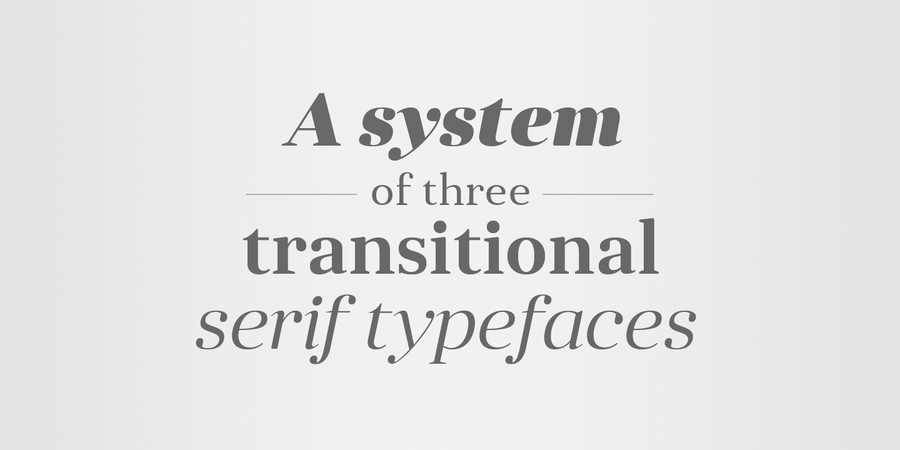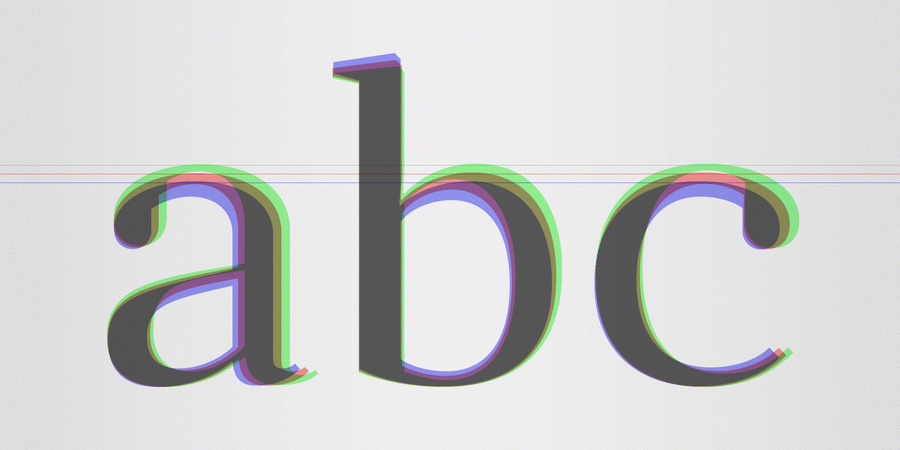
Anglecia Pro is an exquisite and versatile system of three transitional serif typefaces designed to work together in editorial design. Sharing the same skeleton, vertical axis, and trapezoidal uncurved serifs, each of these faces bears different key dimensions and different contrast typical for three different type epochs.
Anglecia Pro Text is a typeface designed for general typesetting in average reading sizes. Although it features a vertical axis, its soft skeleton, relatively small x-height and prominent ascenders and descenders give the typesetting a traditional warm texture with a slight contemporary touch.
Anglecia Pro Title incorporates proportions of familiar transitional serif typefaces but exposes higher-than-average vertical contrast which makes it useful for setting captions, pull quotes or general purpose text in sizes of 12 pt and above.
Anglecia Pro Display, still having non-rectangular serifs and the same soft skeleton as the rest of Anglecia Pro system, features extreme contrast, much thinner serifs and exaggerated ball terminals typical for Didone modern serif families. Its large x-height and tighter letter spacing suggests larger text sizes e.g. in decorative headlines, extra large pull quotes or logos.
Altogether these three typefaces form 36 styles – each supporting numerous Latin-based languages as well as major Cyrillic languages. In roman styles the Cyrillic script comes in two flavours accessible via OpenType alternates – to choose either more traditional and curvy (default) or more formal and rigid type texture. In italics this feature affects uppercase and small caps. Also, each style is packed with OpenType features: ligatures, small caps, six sets of digits, superiors and inferiors, fractions, ordinals, and respective punctuation varieties including all-cap punctuation. There are also language-specific alternates for Polish kreska, Romanian Ș/ș, Catalan punt volat, and correct small-cap versions for Turkish/Azerbaijani i/ı.
The typeface was designed by Andriy Konstantynov at Mint Type foundry in 2014.